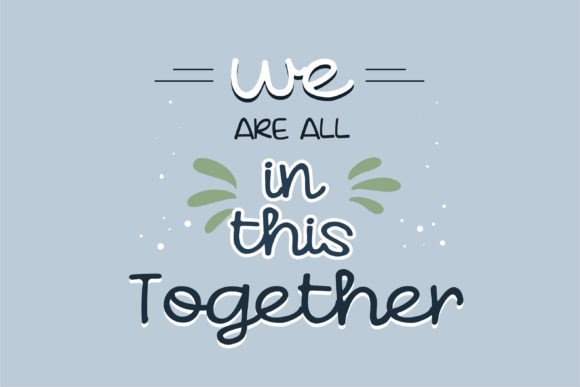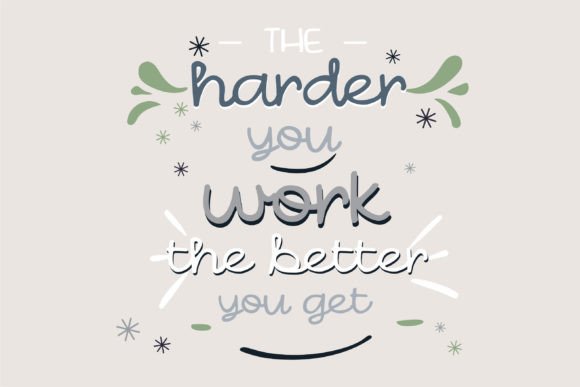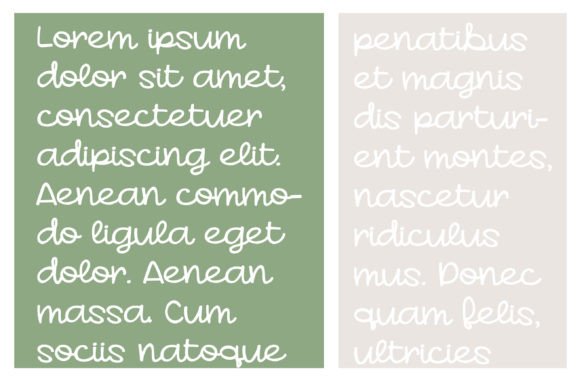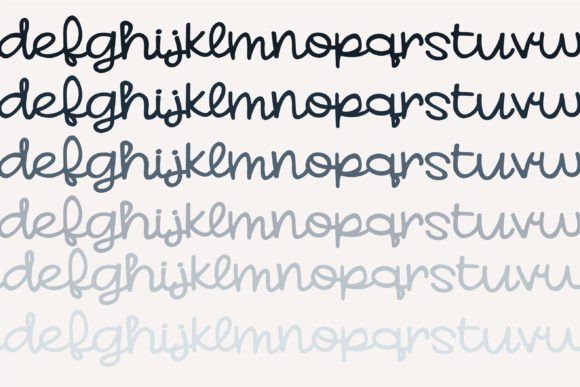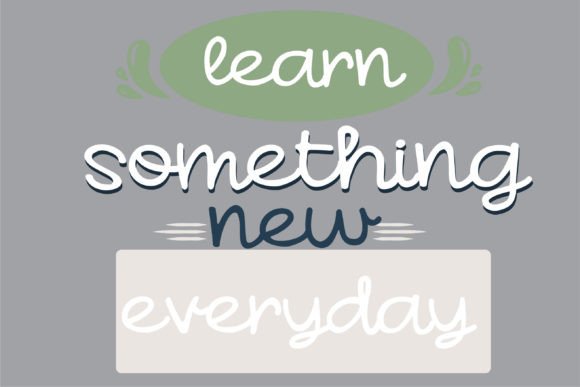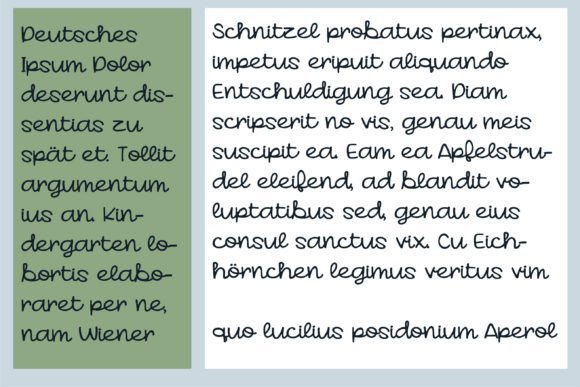
Campaign Font: Elevate Your Designs with a Relaxed and Original Touch
In the world of design, typography plays a crucial role in conveying the tone and personality of a project. When it comes to creating a casual and laid-back vibe, a hand-crafted script font can be the perfect choice. Introducing Campaign Font, a fun and unique cursive script that is great for any project. This font is designed to add a relaxed and original touch to your creative endeavors, making it an excellent addition to your typography arsenal.
The Charm of Hand-Crafted Typography
Campaign Font boasts a charming, hand-crafted quality that sets it apart from more traditional fonts. Its casual cursive style is reminiscent of handwritten notes and personal letters, evoking a sense of warmth and approachability. This font is perfect for designers and crafters looking to add a personal touch to their work, whether it’s a branding project, a website, or a DIY craft.
Key Features of Campaign Font
- Relaxed and Original: Campaign Font’s unique style is designed to add a relaxed and original touch to your projects. Its casual cursive design makes it perfect for creative endeavors that require a laid-back vibe.
- Hand-Crafted Quality: This font boasts a charming, hand-crafted quality that sets it apart from more traditional fonts. Its unique character and personality make it perfect for designers and crafters looking to add a personal touch to their work.
- Versatile: Campaign Font is a versatile font that can be used for a wide range of projects, from branding and advertising to website design and DIY crafts.
- Easy to Read: Despite its casual style, Campaign Font is easy to read and understand, making it perfect for body text and other written content.
Uses for Campaign Font
Campaign Font is a versatile font that can be used for a wide range of projects. Here are some ideas to get you started:
- Branding and Advertising: Use Campaign Font to create unique and eye-catching branding materials, such as logos, business cards, and brochures.
- Website Design: Add a relaxed and original touch to your website with Campaign Font. It’s perfect for headings, titles, and other display text.
- DIY Crafts: Campaign Font is perfect for DIY craft projects, such as handmade cards, gift tags, and other paper crafts.
- Social Media Graphics: Use Campaign Font to create engaging and eye-catching social media graphics, such as Instagram posts and Facebook headers.
Tips for Using Campaign Font
Here are some tips for getting the most out of Campaign Font:
- Use it Sparingly: While Campaign Font is a beautiful font, it can be overwhelming if used too much. Use it sparingly to add a touch of personality to your project.
- Pair it with Other Fonts: Campaign Font pairs well with other fonts, such as sans-serif fonts and serif fonts. Experiment with different pairings to find the perfect combination for your project.
- Adjust the Size and Color: Campaign Font looks great in a variety of sizes and colors. Experiment with different sizes and colors to find the perfect look for your project.
Campaign Font is a unique and versatile font that is perfect for designers and crafters looking to add a relaxed and original touch to their projects. Its hand-crafted quality and casual cursive style make it perfect for a wide range of creative endeavors. With its ease of use and flexibility, Campaign Font is an excellent addition to any typography arsenal.
Whether you’re a designer, crafter, or DIY enthusiast, Campaign Font is a great choice for any project. So why not give it a try and see how it can elevate your designs to the next level?